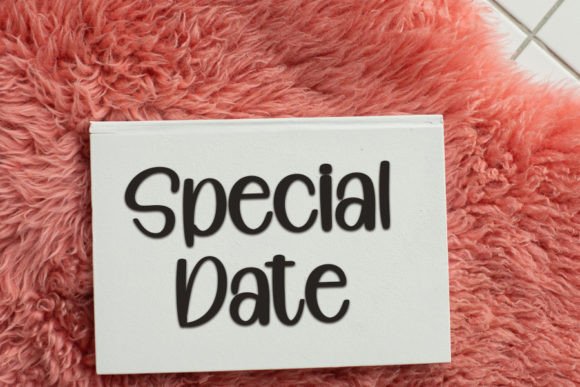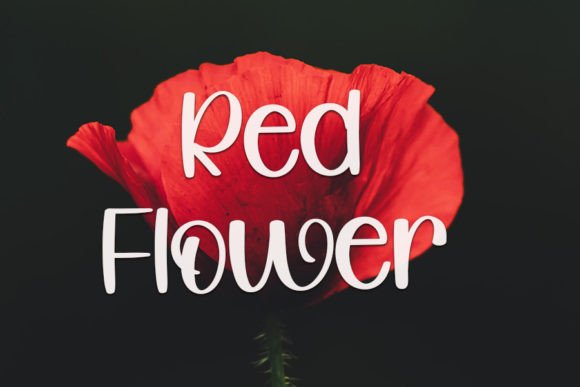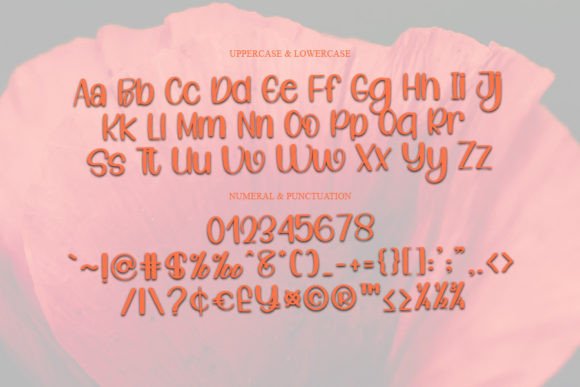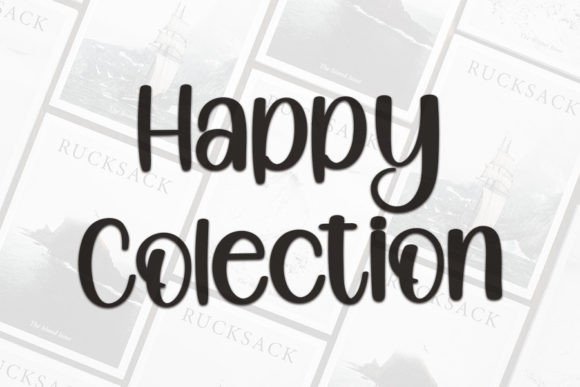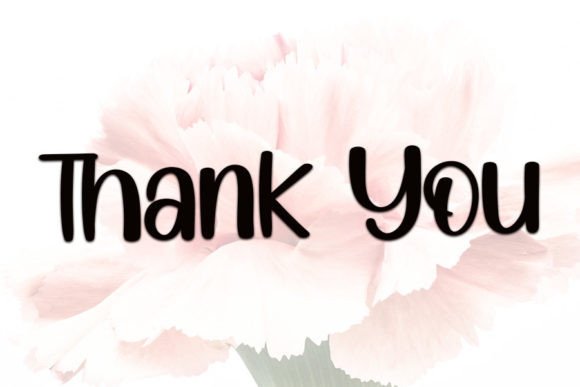
Falling in Love with February Font: A Designer’s Dream Come True
I still remember the design project that led me to discover the stunning February Font. I was working on a wedding invitation suite, and my client had a very specific vision: elegant, yet modern, with a touch of whimsy. As I scoured the internet for the perfect font, I stumbled upon February Font, and it was love at first sight! 💕
Designed with a lovely brush pen, February Font exudes a beautiful, flowing handwritten style that maintains its classy calligraphic influences while feeling contemporary and fresh. It’s perfect for designers, crafters, and creative hobbyists looking to elevate their projects to the highest levels.
- 💫 Elegant, flowing script with a lovely brush pen feel
- ✅ Classy calligraphic influences with a modern twist
- 🌈 Beautifully suited for wedding, event, or branding projects
- 👍 Highly legible, even at smaller font sizes
- ⚠️ Limited availability of stylistic alternates (but still plenty to work with!)
- 🤔 May not be the best fit for very bold or attention-grabbing designs
The Story Behind February Font: Designer Inspiration
February Font was designed by a talented typographer who wanted to create a font that would evoke the feeling of a lovely brush pen. With a passion for calligraphy and handwriting, the designer carefully crafted each letterform to be both elegant and modern. The result is a font that’s perfect for designers and crafters looking for a touch of sophistication in their projects.
| Font Name | February Font |
| Author | K_IN Studio |
Q: What makes February Font so special?
A: February Font’s unique blend of elegant, flowing script and modern, fresh feel makes it perfect for a wide range of design projects.
Q: Is February Font suitable for body text?
A: While February Font is highly legible, it’s best suited for headlines, titles, or short paragraphs. For longer body text, you may want to consider a more traditional font.